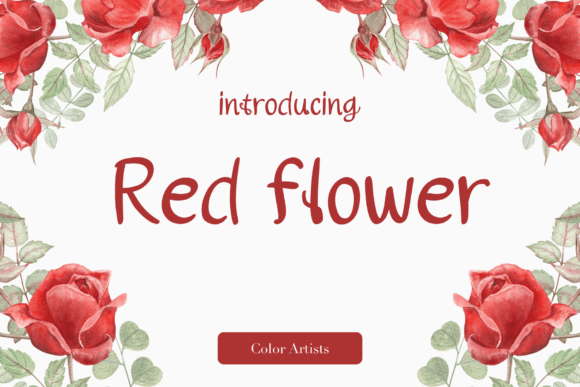
Introducing Red Flower Font, the epitome of elegance and creativity, brought to you by MyFontsShop. This extraordinary script font captivates with its graceful, flowing lines and intricate floral embellishments that evoke a sense of timeless beauty. Red Flower is not just a font; it's an artistic masterpiece that will transform your creative projects into breathtaking works of art.
Immerse yourself in the world of Red Flower and discover a symphony of delicately crafted characters, each adorned with subtle curves and exquisite details that dance across the page. Whether you're a seasoned designer or just starting your creative journey, Red Flower will ignite your imagination and elevate your designs to new heights.
With Red Flower Script Font as your creative companion, you'll have the power to weave enchanting invitations that capture the hearts of your guests. Envision wedding invitations adorned with Red Flower's elegant strokes, carrying the promise of a magical celebration. Create packaging designs that whisper luxury and sophistication, leaving an unforgettable impression on your customers. Unleash your branding potential with logos and business cards that exude professionalism and artistry, setting you apart from the ordinary.
Red Flower's versatility knows no bounds. It effortlessly adapts to a myriad of creative endeavors, from crafting heartfelt greeting cards to designing eye-catching posters that command attention. Bring your social media presence to life with captivating visuals infused with Red Flower's charm, captivating your audience with every post. Whether you're a graphic designer, a passionate crafter, or simply someone who appreciates the beauty of exceptional typography, Red Flower is the font that will unlock your creative potential and transform your visions into reality.